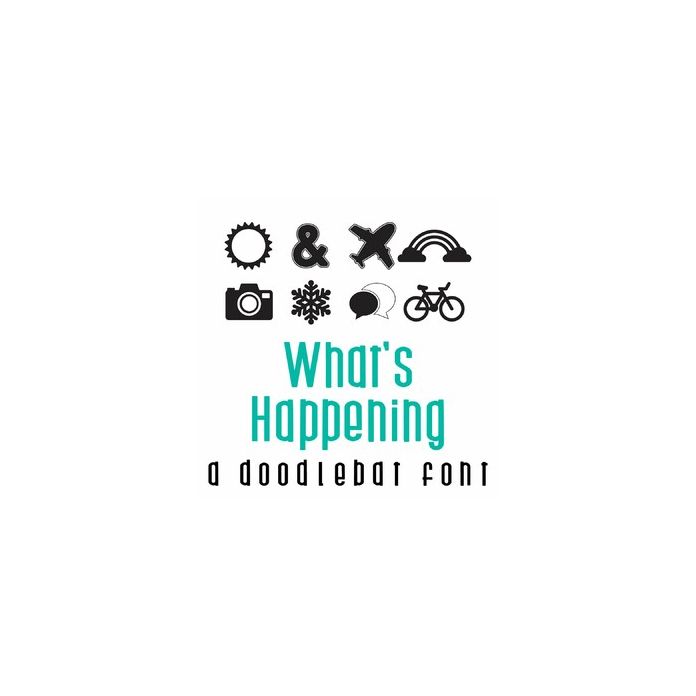
This fun doodlebat font features 26 pixel iconic symbols for weather, classrooms, travel and more! Perfect for cards, gifts, decor, crafts, scrap book pages, planner stickers and more!